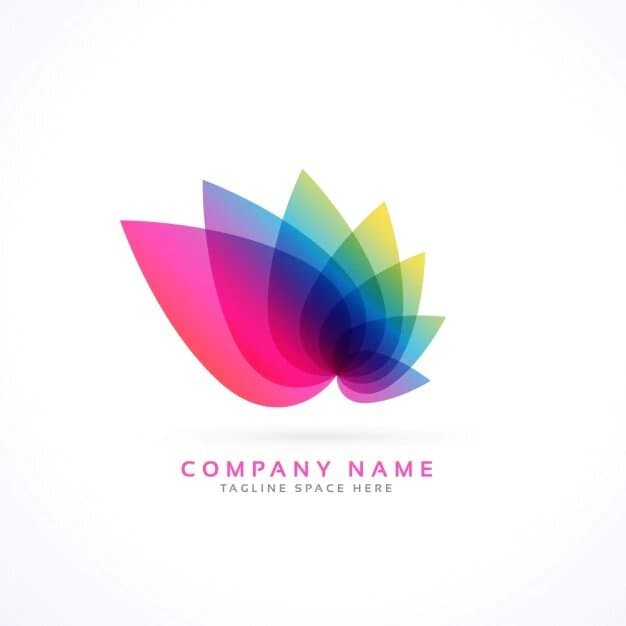
As wordmarks are built only using letters, opting for a typeface that showcases your brand is vital. Michael Evamy, a writer, journalist, and copywriter, says, "Words carry meaning; typefaces convey character." You have to choose a specific typeface ...